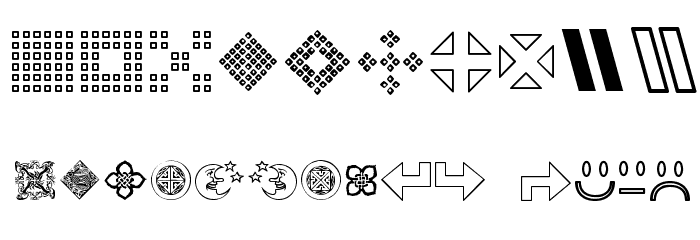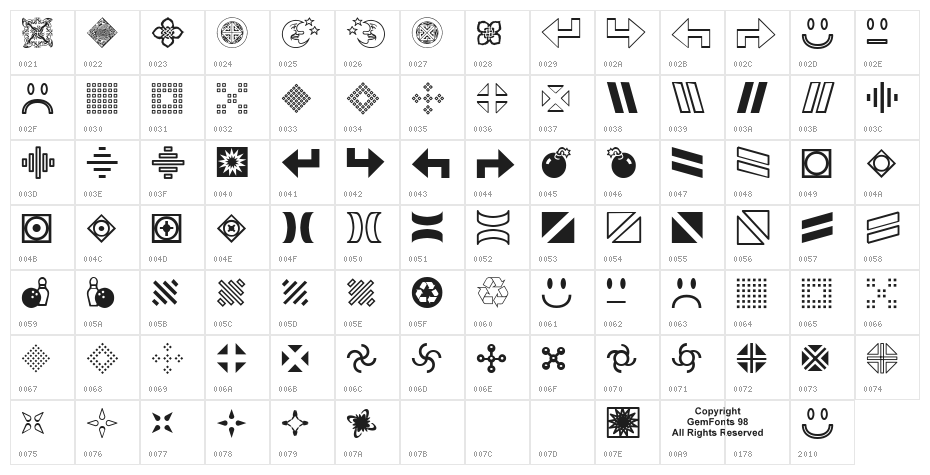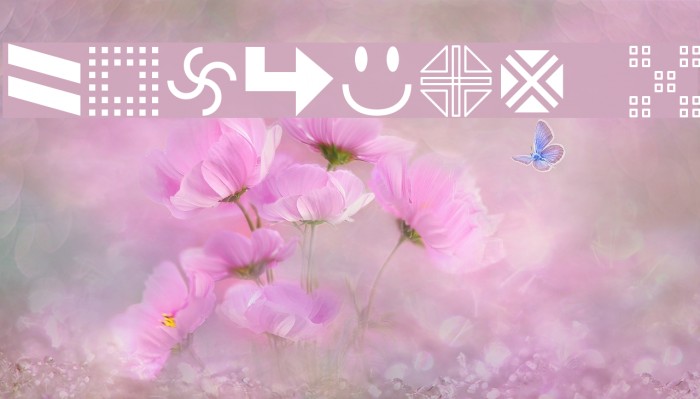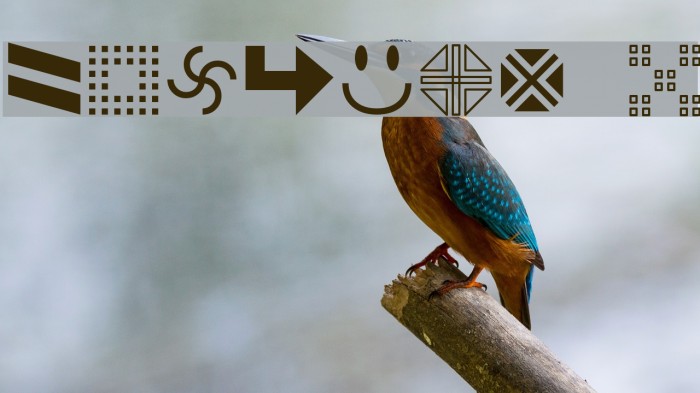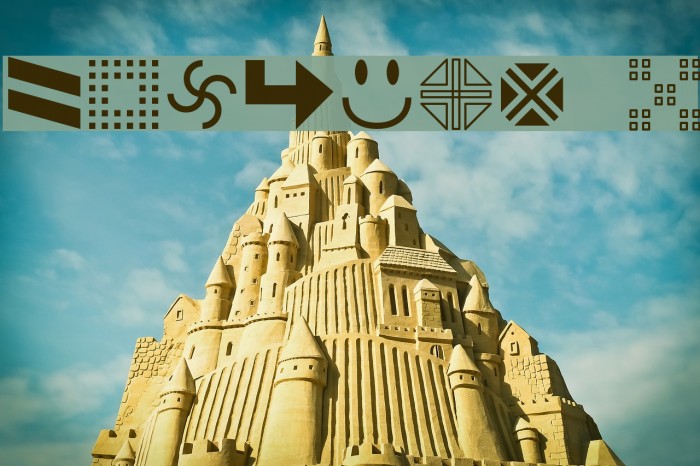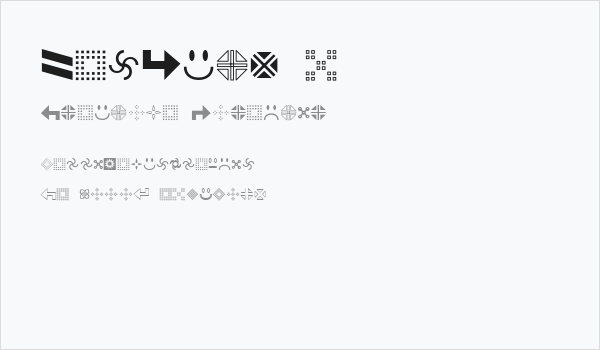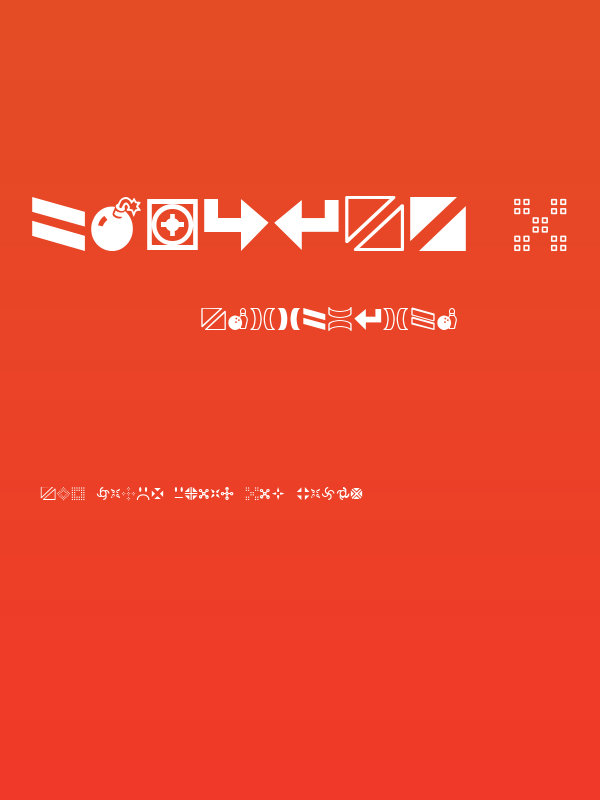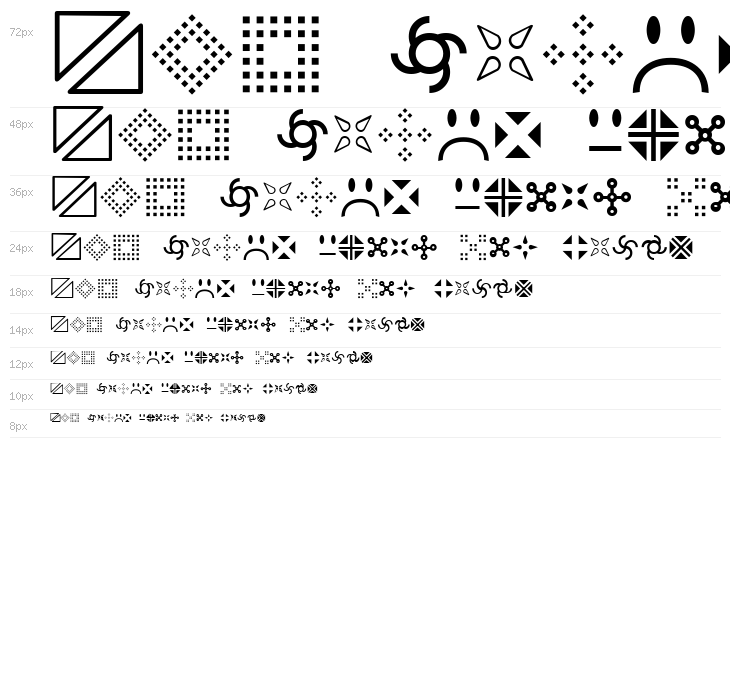
GemBats 2 Font
GemBats 2 Description
This collection features a diverse array of geometric and abstract symbols, each with a unique design. The symbols include arrows, circles, squares, and intricate patterns that suggest movement and direction. Some symbols resemble emoticons, while others are reminiscent of game pieces or decorative elements. The designs are bold and striking, with a mix of solid and outlined forms, creating a dynamic visual impact. The variety of shapes and styles offers versatility for creative projects, allowing for both playful and sophisticated applications.
| Use Case | Logos, Decorative elements, Digital art |
| Proposed Projects | Ideal for graphic design projects, digital art, game design, and decorative elements in print media. |